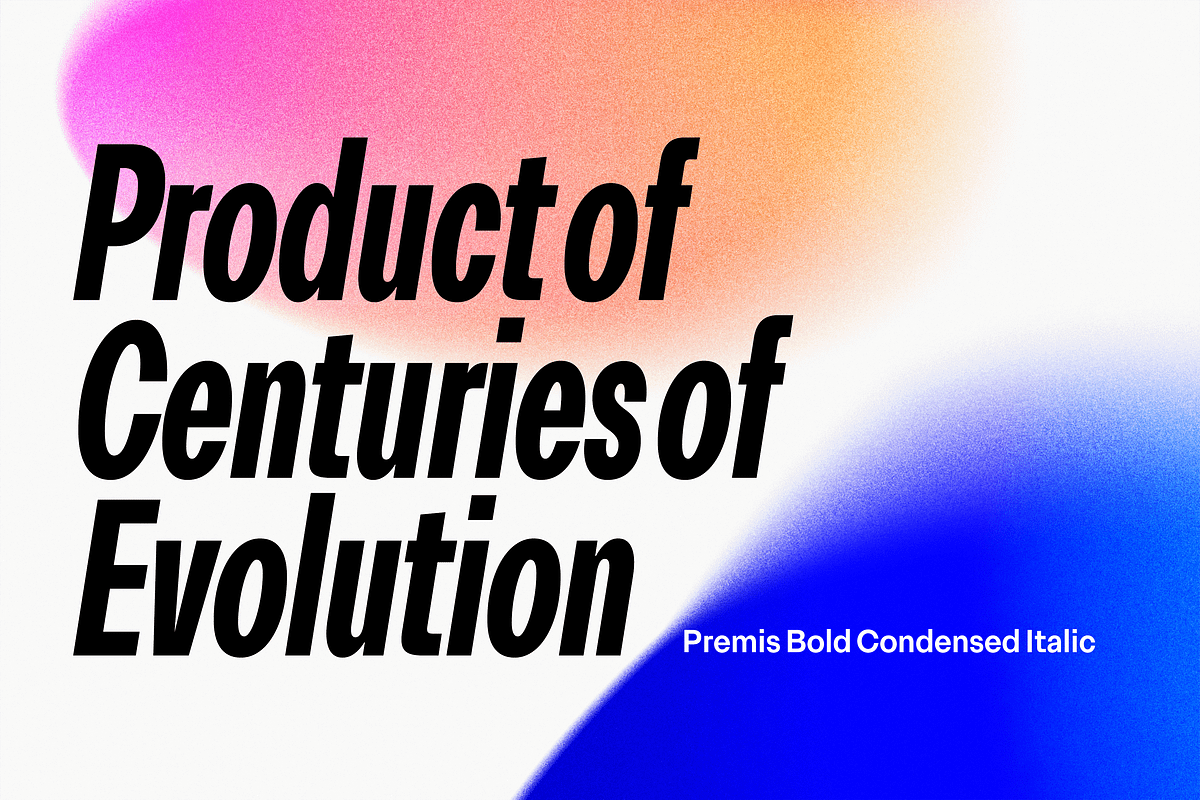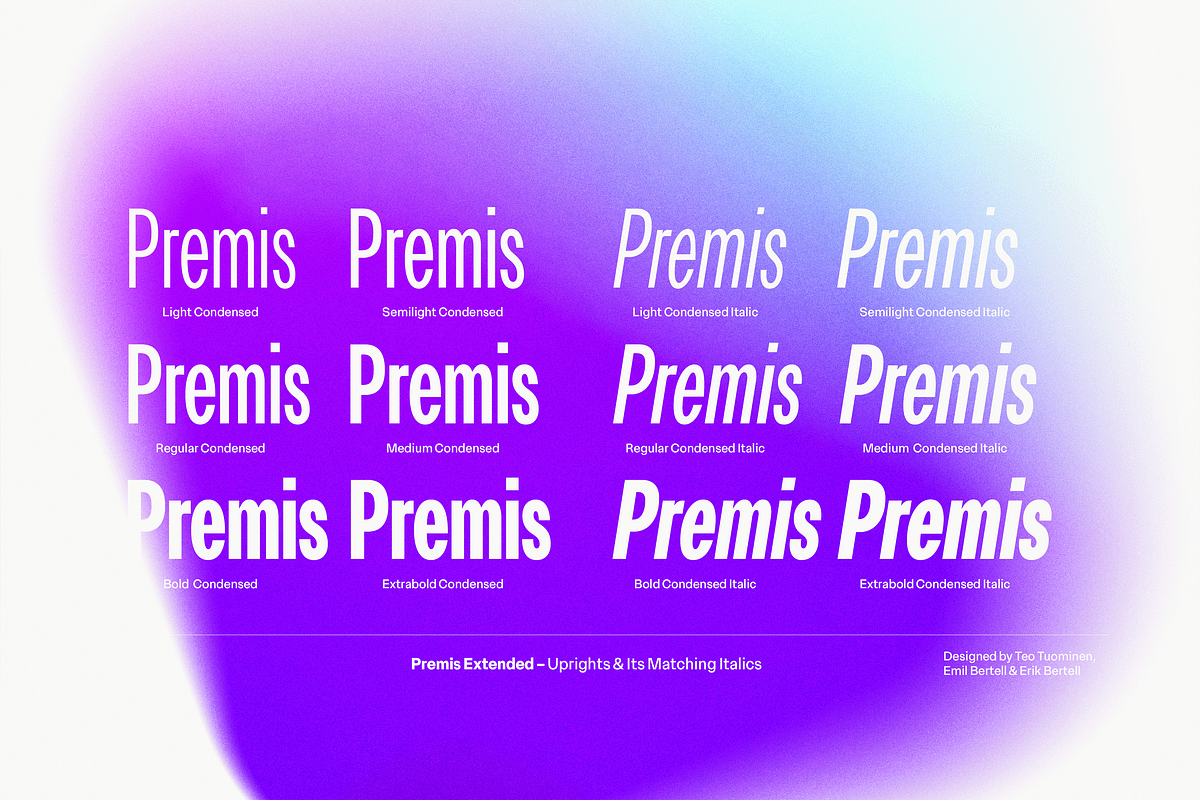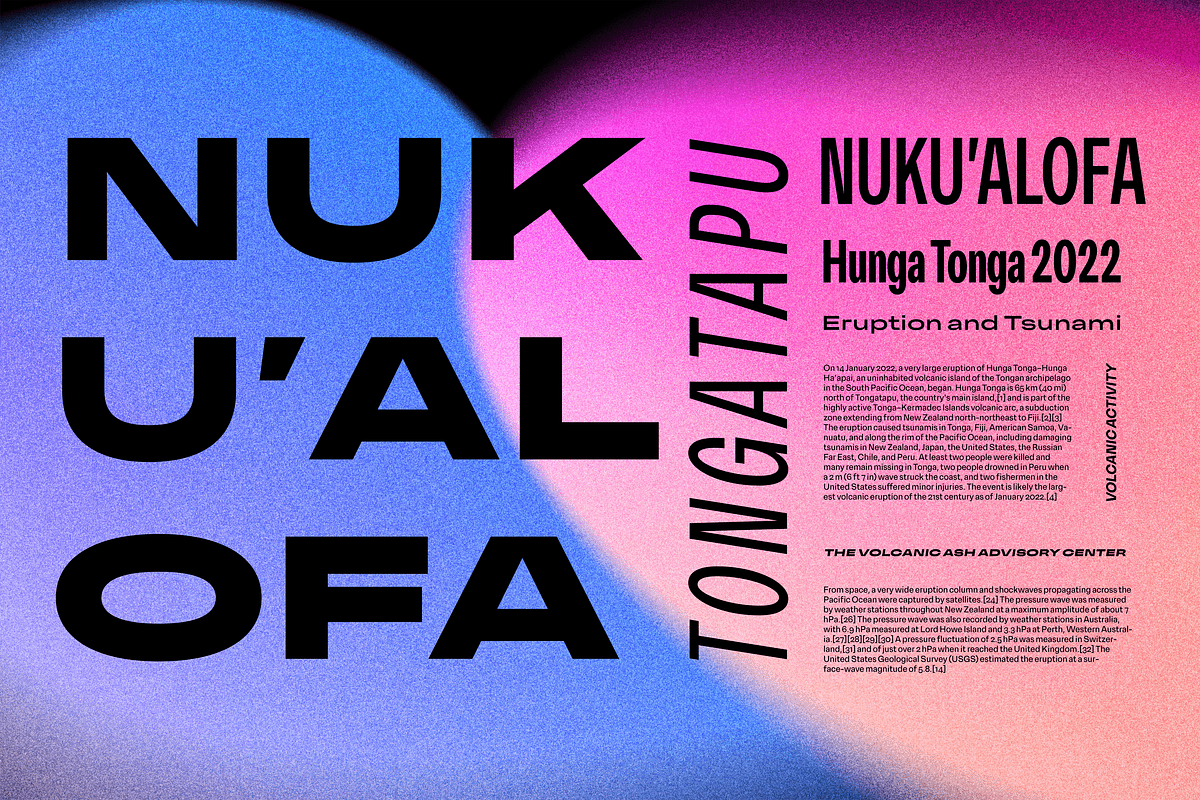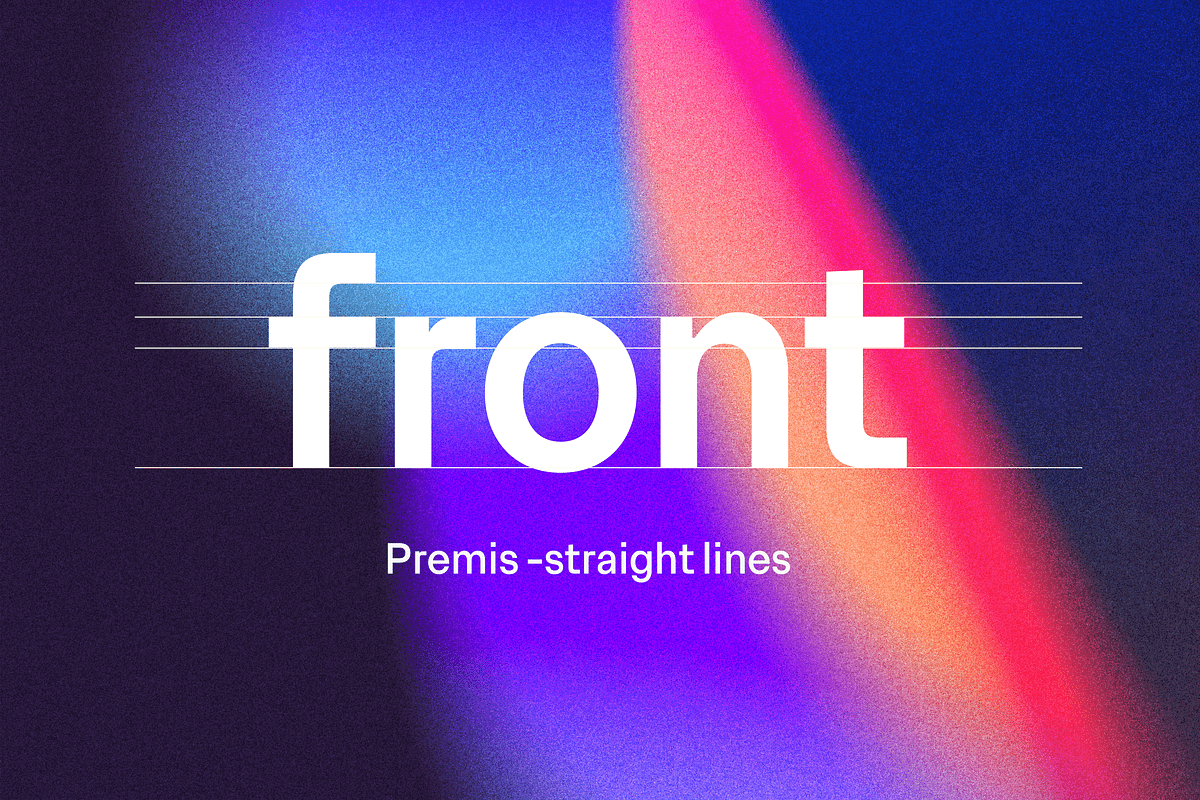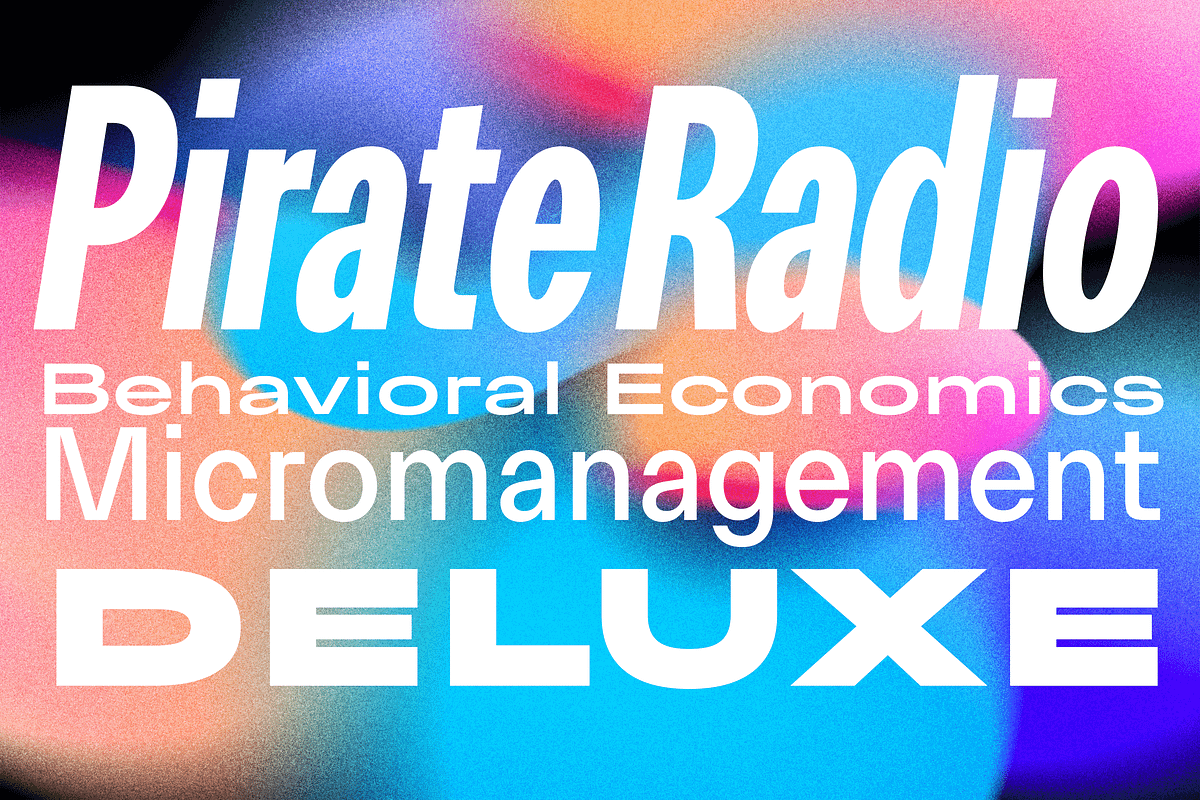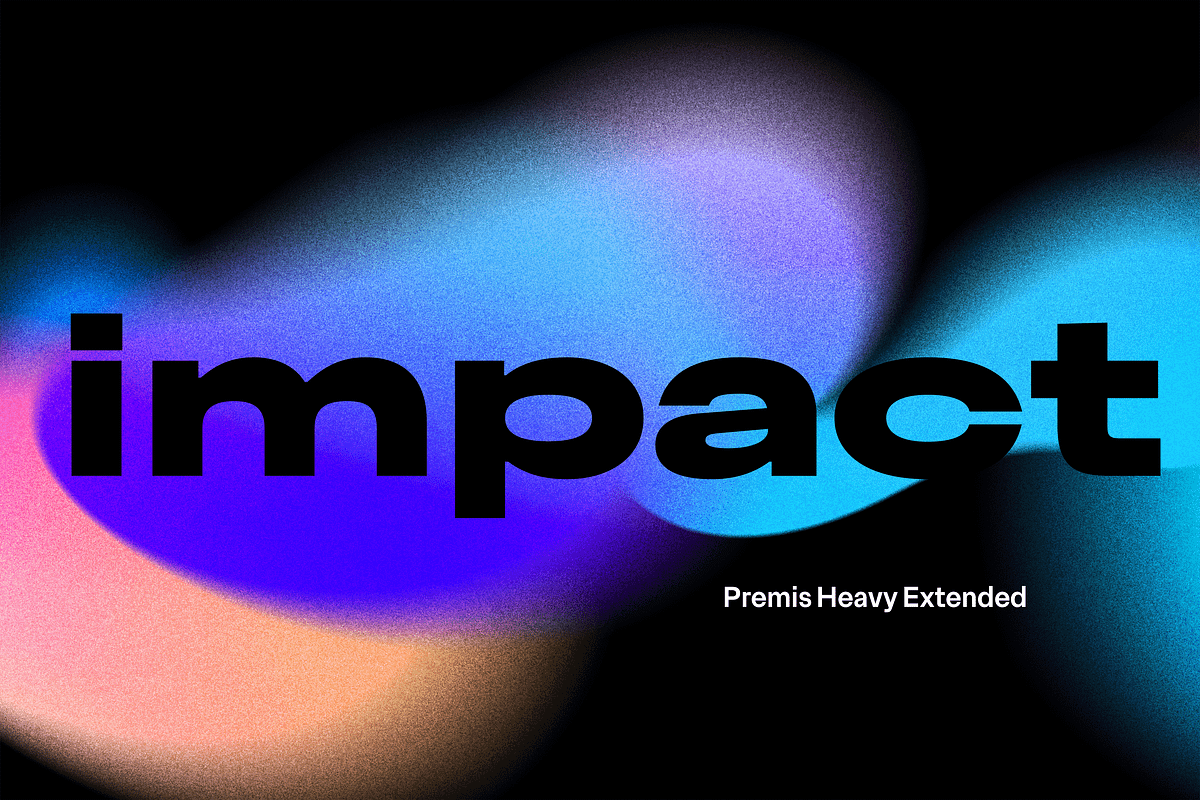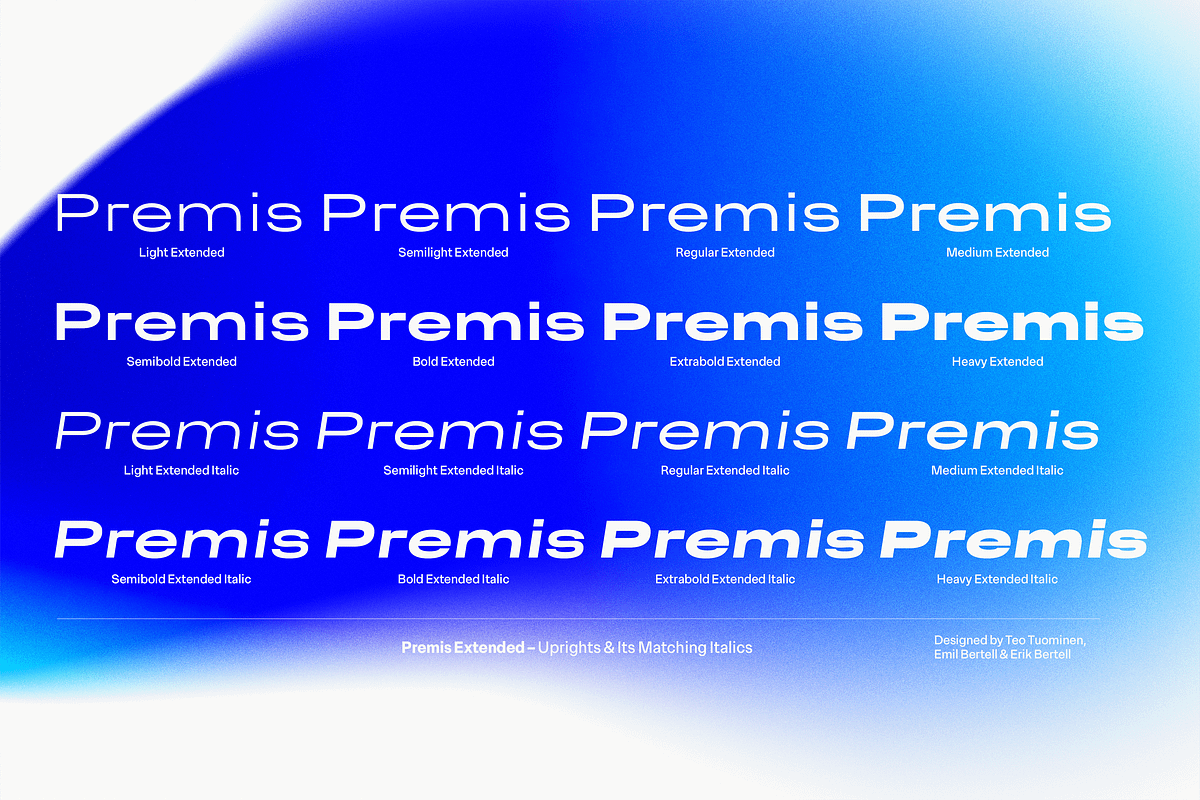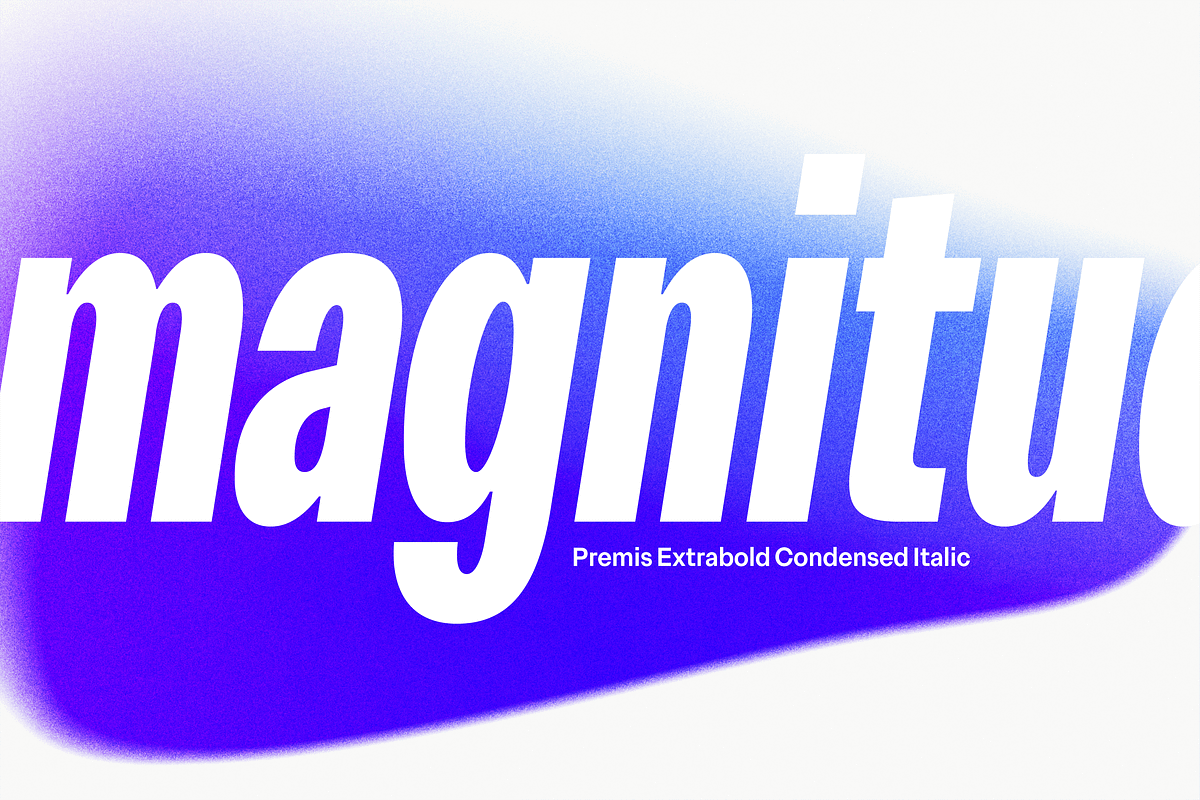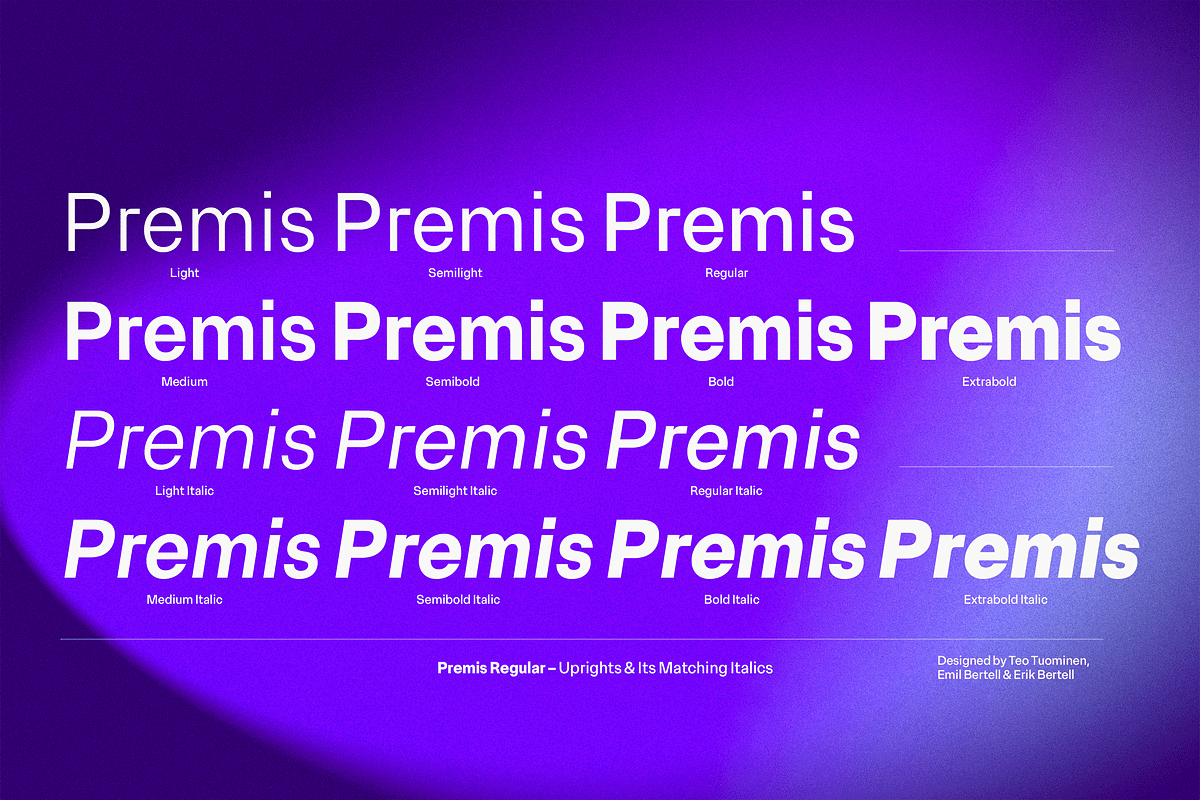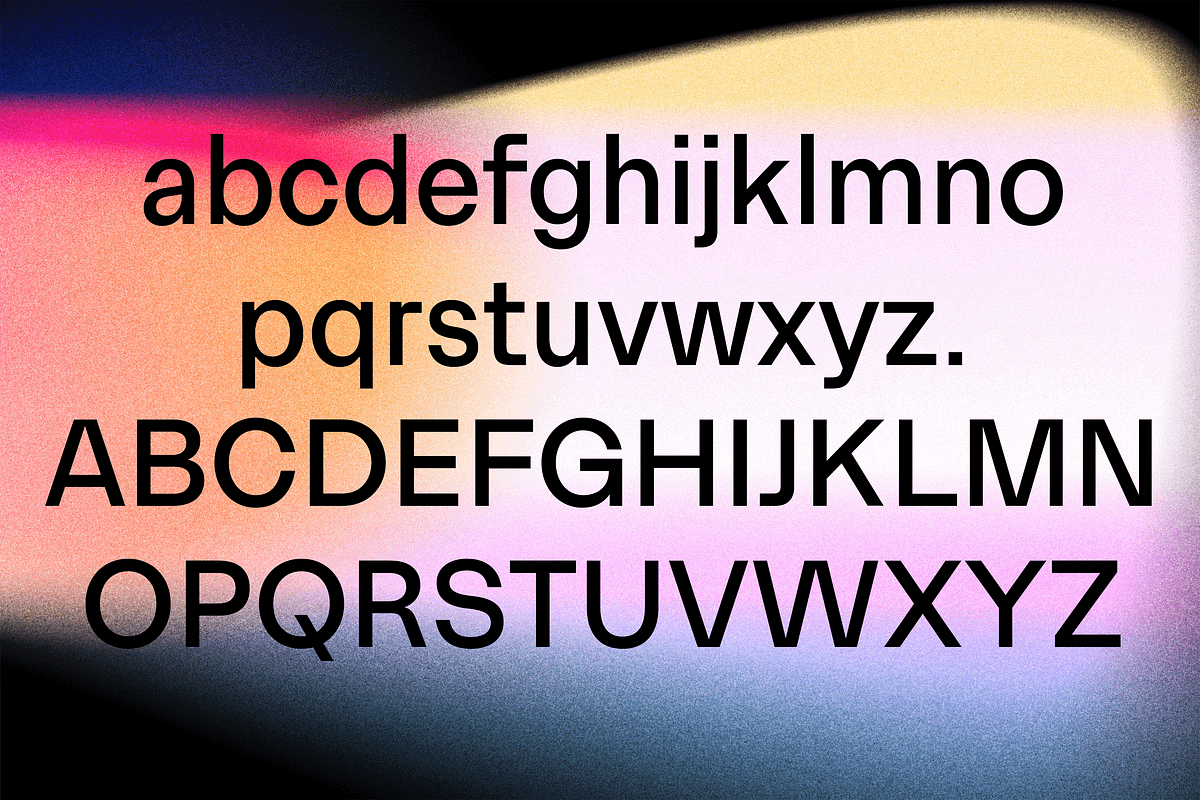
Premis Straightforward Sans Family
Do you often find yourself looking for a font that is universal and neutral on the one hand, and distinctive and special on the other? Here's one for you. Premis is a fairly broad font family that is suitable for versatile use, but still has plenty of original details, such as straight endings in the letters r, t and f. Equally current and timeless, Premis is available in three different widths. In terms of features, Premis is sensibly designed to meet demanding use, including, for example, capital letters and several different number styles. Make Premis your premise.